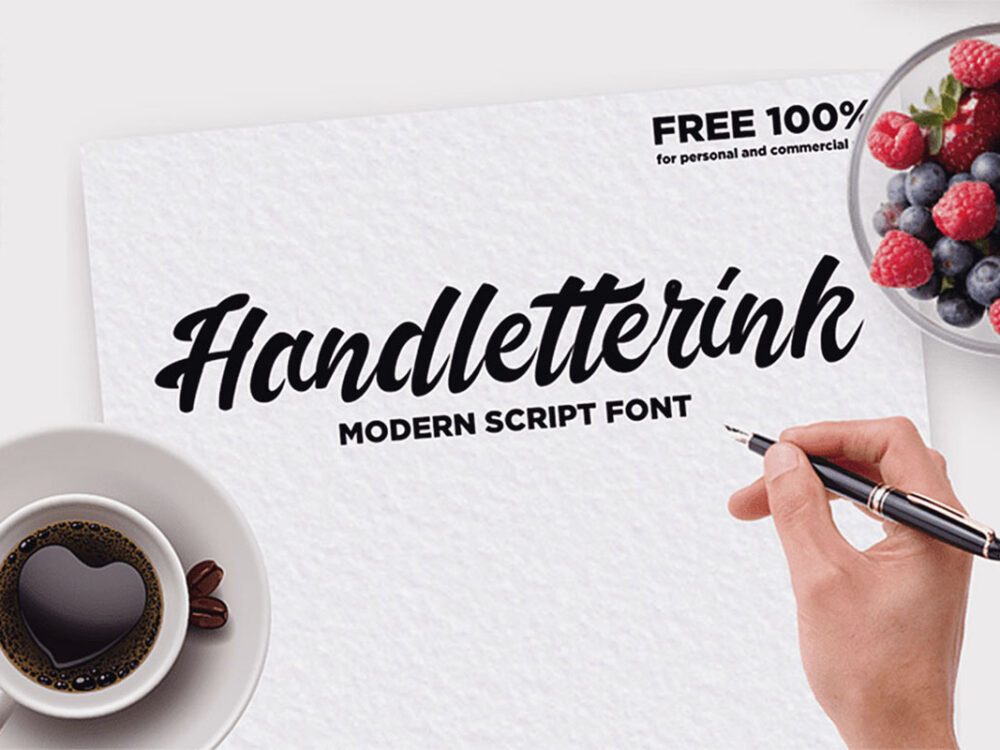
Handletterink Script Free Font
Handletterink Script Free Font is a beautiful completely free handwritten font that features bold style and smooth lines. Perfect for branding and creating posters, clothing prints, postcards, and more.